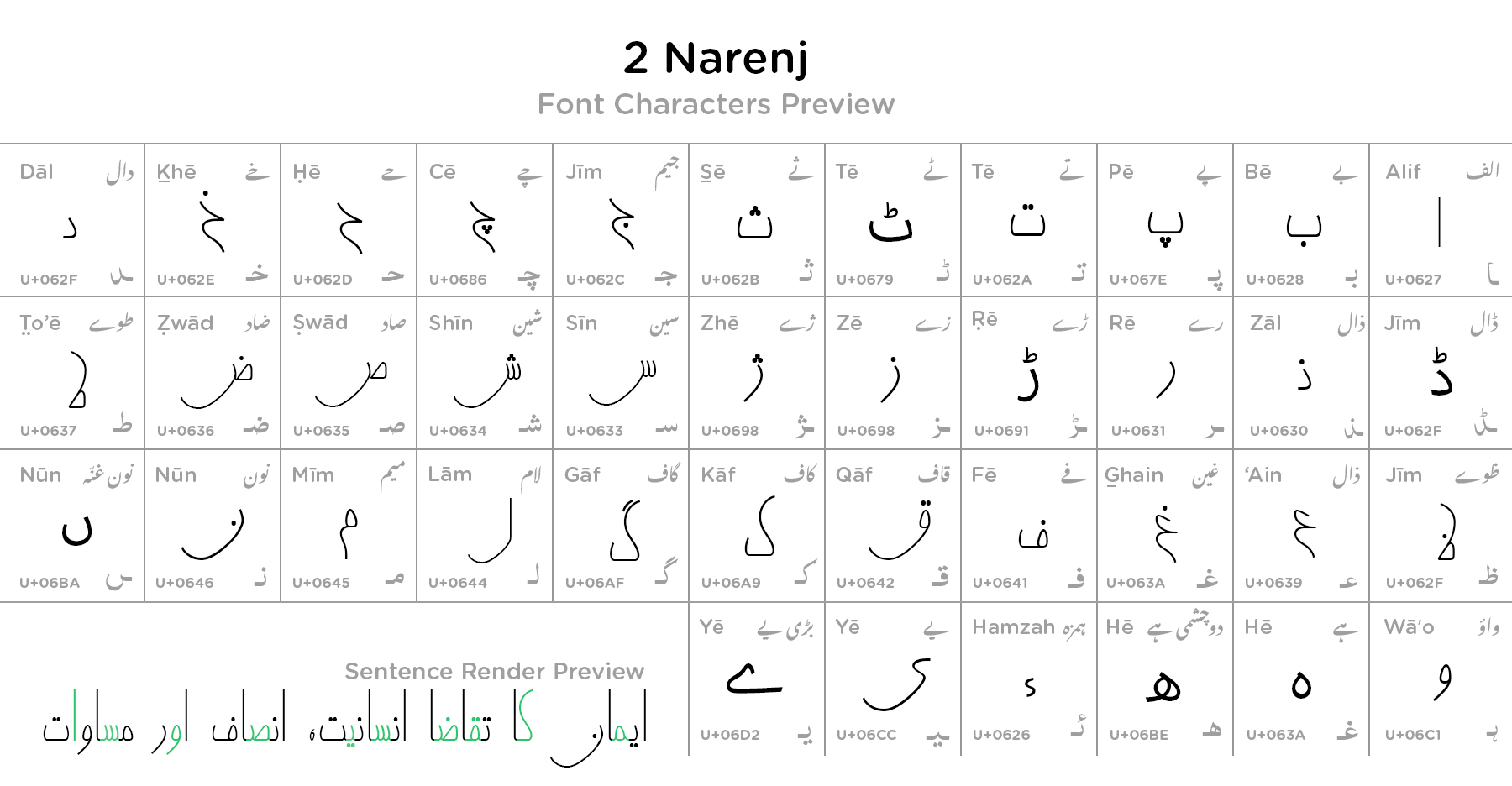
2 Narenj is an Arabic typeface introduced on March 31, 2016, under the trademark of 1998 Mrtsoft®. The font offers a unique appearance with its contrasting straight and aligned composition. Based on its physical presence, it is not entirely a Thulth nor a Naskh font, merging elements of both calligraphic scripts with modern influences. It offers versatile language support for Arabic, Latin, Urdu, etc., making it suitable for various design applications. With 288 characters and 217 glyphs, it provides ample options for expressing creativity. Its normal font-weight and medium width ensure balanced typography, while support for Arabic, Latin, and Urdu languages expands its utility.
Narenj 2 is a thin or sleek calligraphy font offering a consistent thickness throughout the letterforms. Considering its delicate screen presence and modern design, the font is recommended to be used for design purposes where readability is not paramount. Therefore, it can be used to make crafty invitations, flyers, branding, and more. When using this typeface, make sure to use large resolutions, as its legibility can be compromised due to its delicate letterform. Furthermore, Unicode blocks covering Basic Latin, Arabic Presentation Forms, and more ensure compatibility across different platforms and applications.